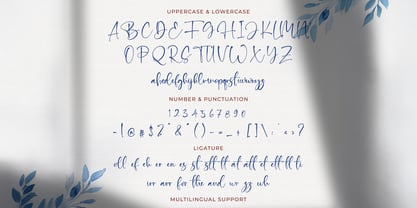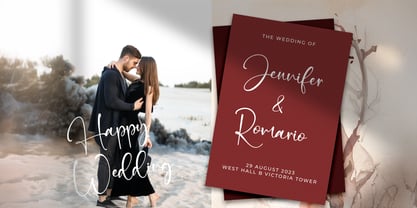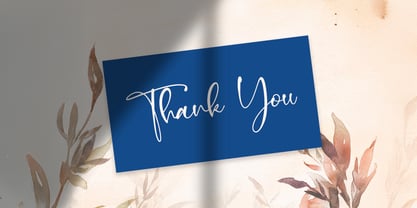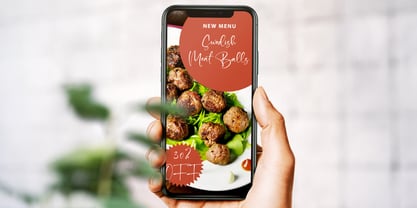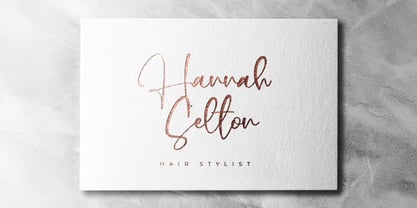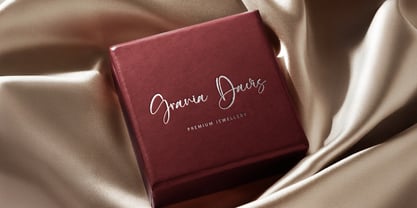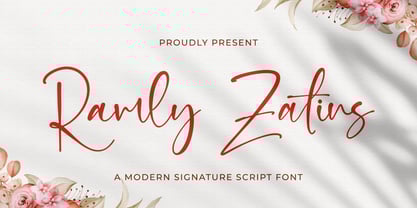
Ramly Zatins
by Stringlabs Creative Studio
The Ramly Zatins Font Family was designed by Virgiawan Listanto and published by Stringlabs Creative Studio. Ramly Zatins contains 1 styles. More about this family
Ramly Zatins is a modern signature script font that combines fluid strokes with a personal, handwritten charm. Its smooth curves and stylish elegance make it a perfect choice for sophisticated branding and expressive visual projects.
Designers: Virgiawan Listanto
Foundry: Stringlabs Creative Studio